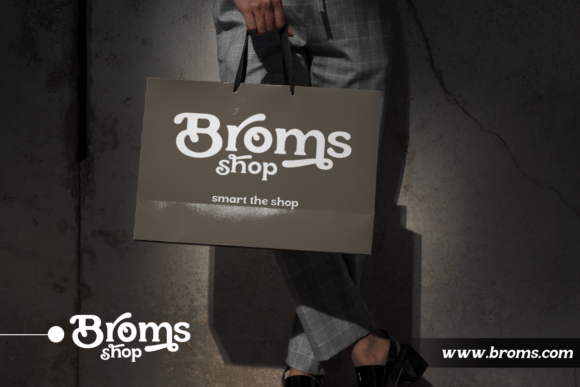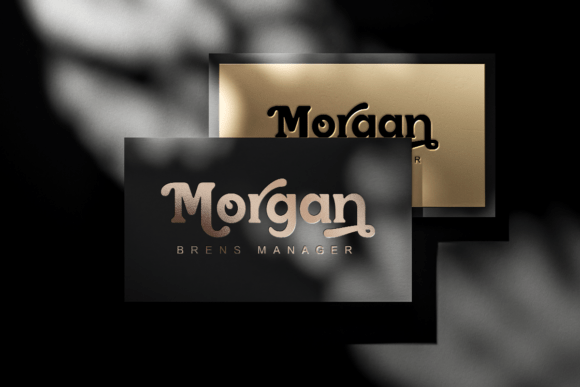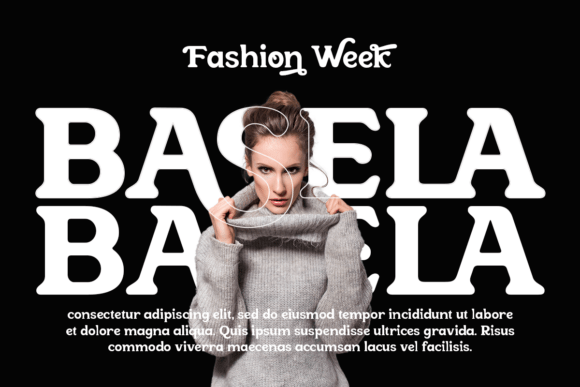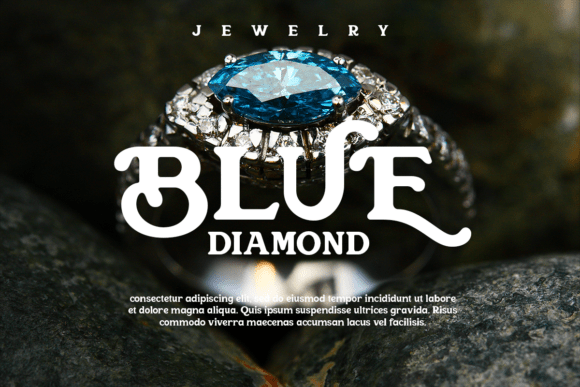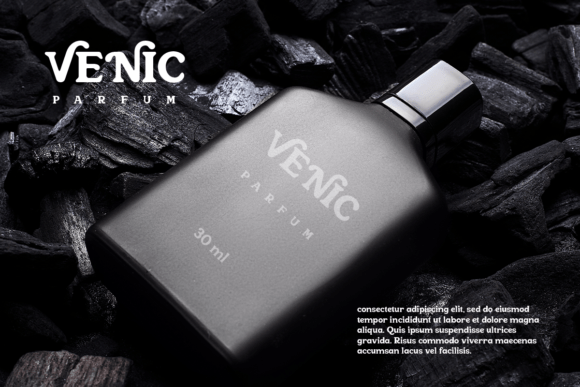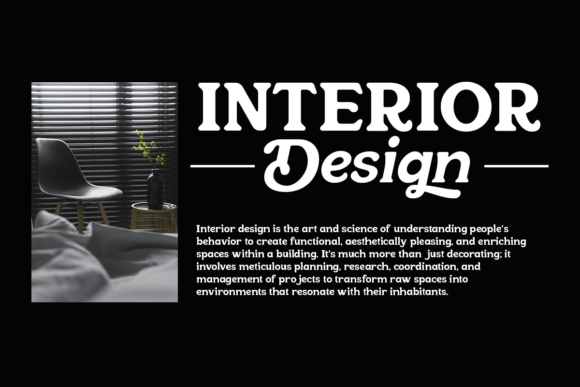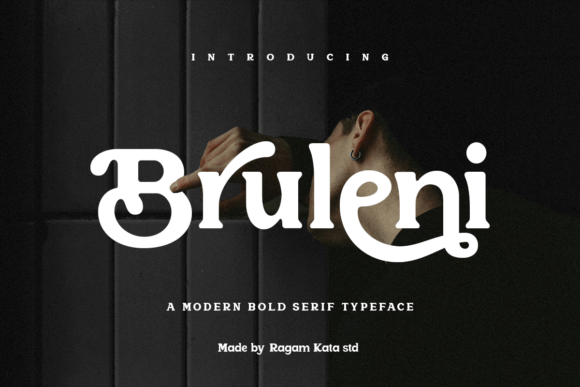
I still remember the countless hours I spent searching for the ideal font for a luxury fashion brand’s logo project. The client wanted something bold, elegant, and statement-making. I scrolled through font libraries, tried out dozens of options, but nothing seemed quite right. That was until I stumbled upon Bruleni Font. With its thick strokes, sharp serifs, and confident attitude, it was love at first sight! ✨ In this article, I’ll share my experience with Bruleni, its features, and how to make the most of this stunning font.
Bruleni Font: A Bold Serif Masterpiece
Bruleni is a bold serif font designed to make a statement. With its thick strokes, sharp serifs, and confident attitude, it’s ideal for luxury branding, editorial designs, and fashion-forward projects. Each character is crafted with elegance and flair, striking a balance between modern strength and classic sophistication. Whether for logos, packaging, or headlines, Bruleni adds undeniable presence to your visuals.
• ✨ Elegant and bold design that’s perfect for luxury branding
• ✅ High-quality, crisp lines and sharp serifs
• 🔥 Versatile and adaptable for various design projects
• 👍 Excellent for headlines, logos, and packaging design
While Bruleni is an exceptional font, there are a few things to keep in mind: ⚠️ It may not be the best choice for body text due to its bold nature. Also, some users have reported issues with kerning, but this can be easily adjusted in most design software.
🤔 As with any font, it’s essential to experiment and fine-tune the settings to achieve the desired look.
The Story Behind Bruleni
Bruleni was designed with the intention of creating a bold, statement-making font that exudes luxury and sophistication. Inspired by classic serif fonts, the designer aimed to craft a modern, elegant typeface that’s perfect for high-end branding and editorial design. The result is a font that’s both timeless and trendy, versatile and adaptable.
Font Name Bruleni Font
Author RagamKata Studio
Q: What type of projects is Bruleni best suited for?
A: Bruleni is ideal for luxury branding, editorial designs, and fashion-forward projects, such as logos, packaging, and headlines.
Q: Can I use Bruleni for body text?
A: While Bruleni is a beautiful font, it’s not recommended for body text due to its bold nature. It’s better suited for headlines and titles.
Q: Is Bruleni a versatile font?
A: Yes, Bruleni is a versatile font that can be used in various design projects, from luxury branding to editorial design.
Q: Does Bruleni support OpenType features?
A: Yes, Bruleni supports OpenType features, such as ligatures and stylistic alternates, which can be accessed in compatible design software.